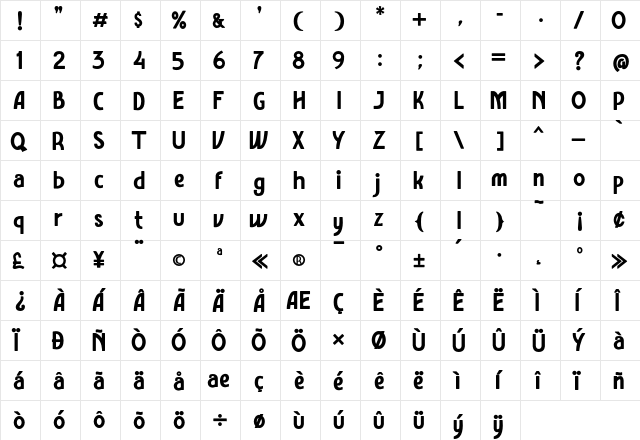
Amro Sans Bold
| Foundry | Andi Winarno - INKsTYPIA |
| Designer | Andi Winarno |
Design Context for Amro Sans Typeface
Amro Sans is a composed and adaptable typeface that performs quietly and consistently across a wide range of design contexts. Its bold stroke weight gives it real presence on the page.